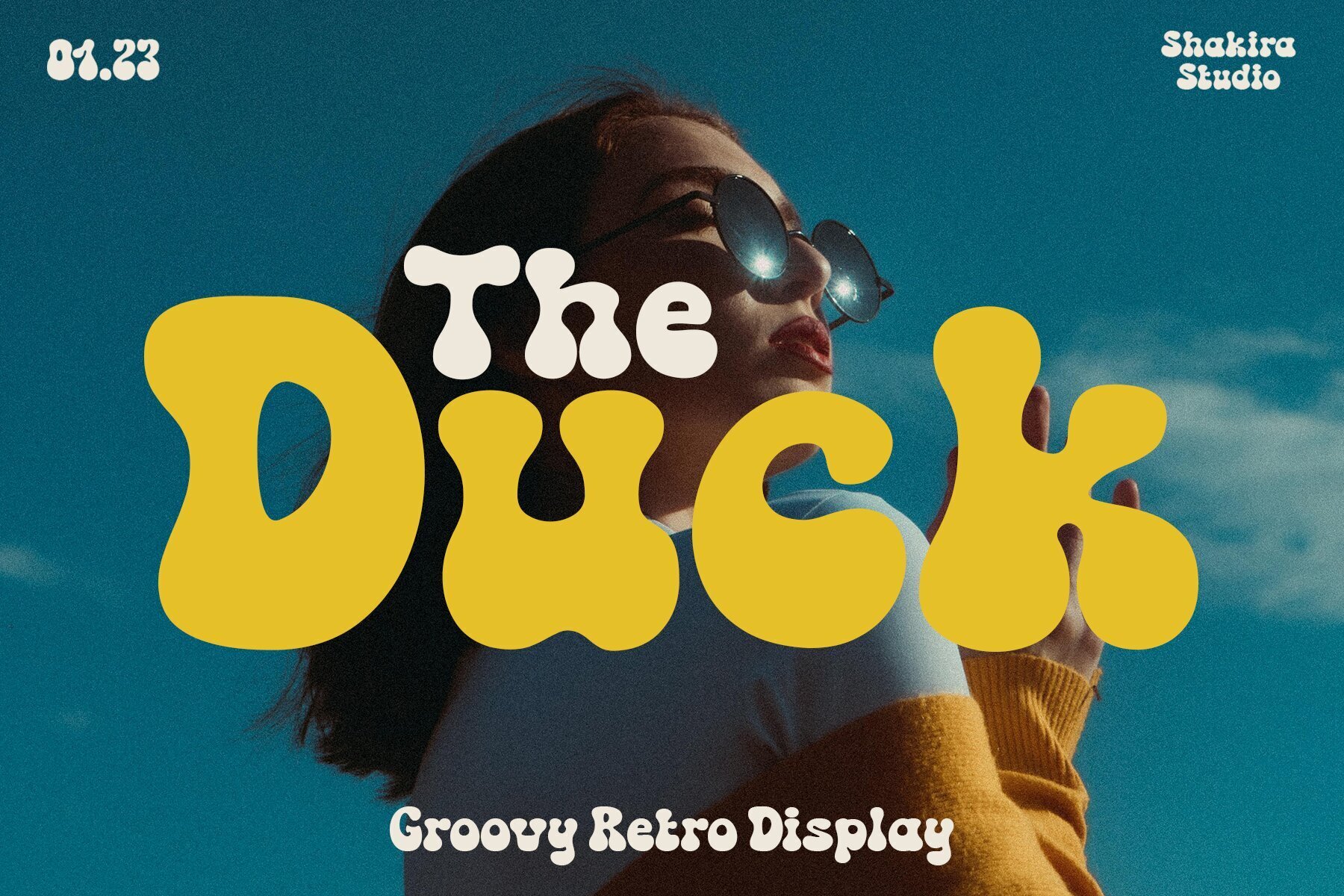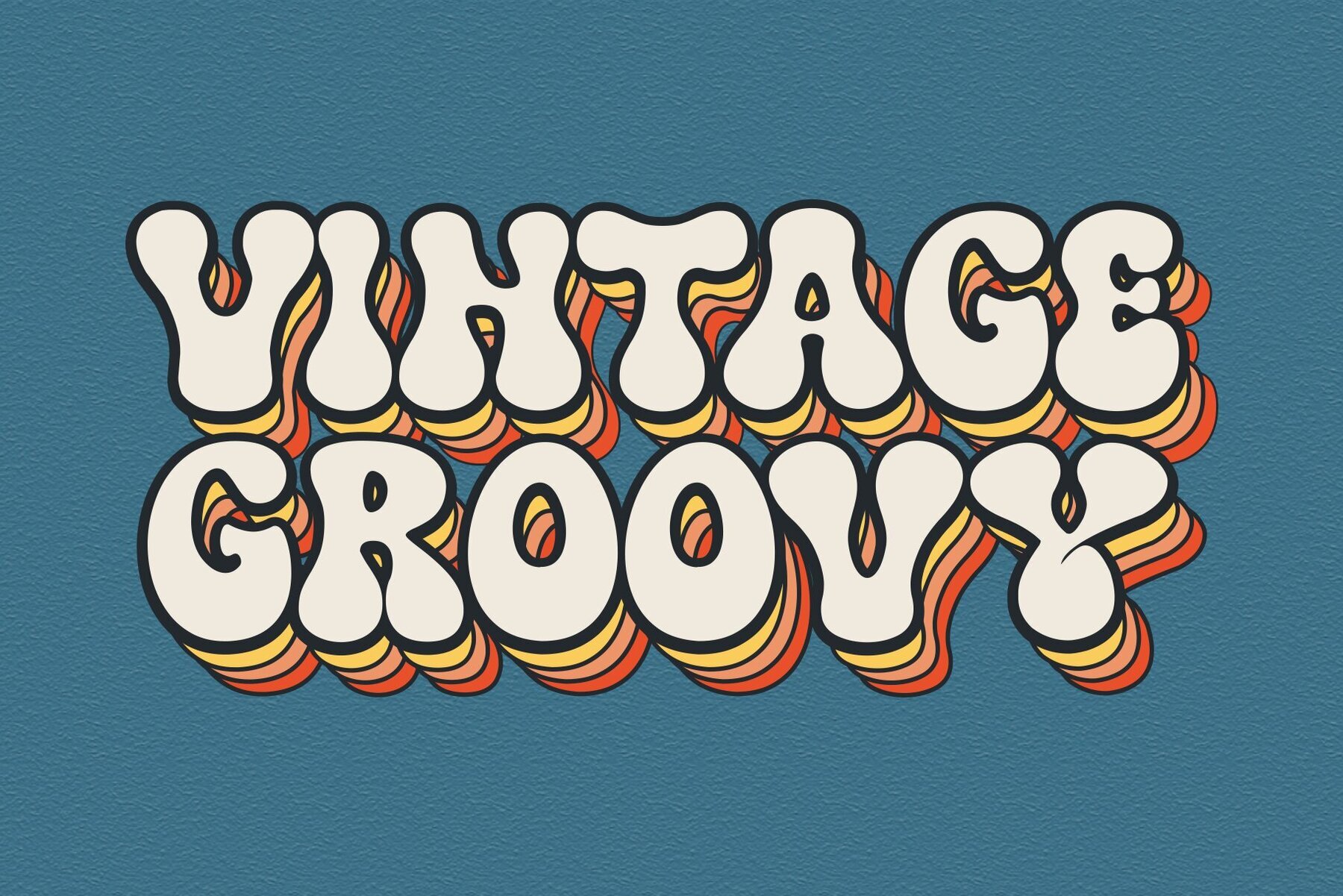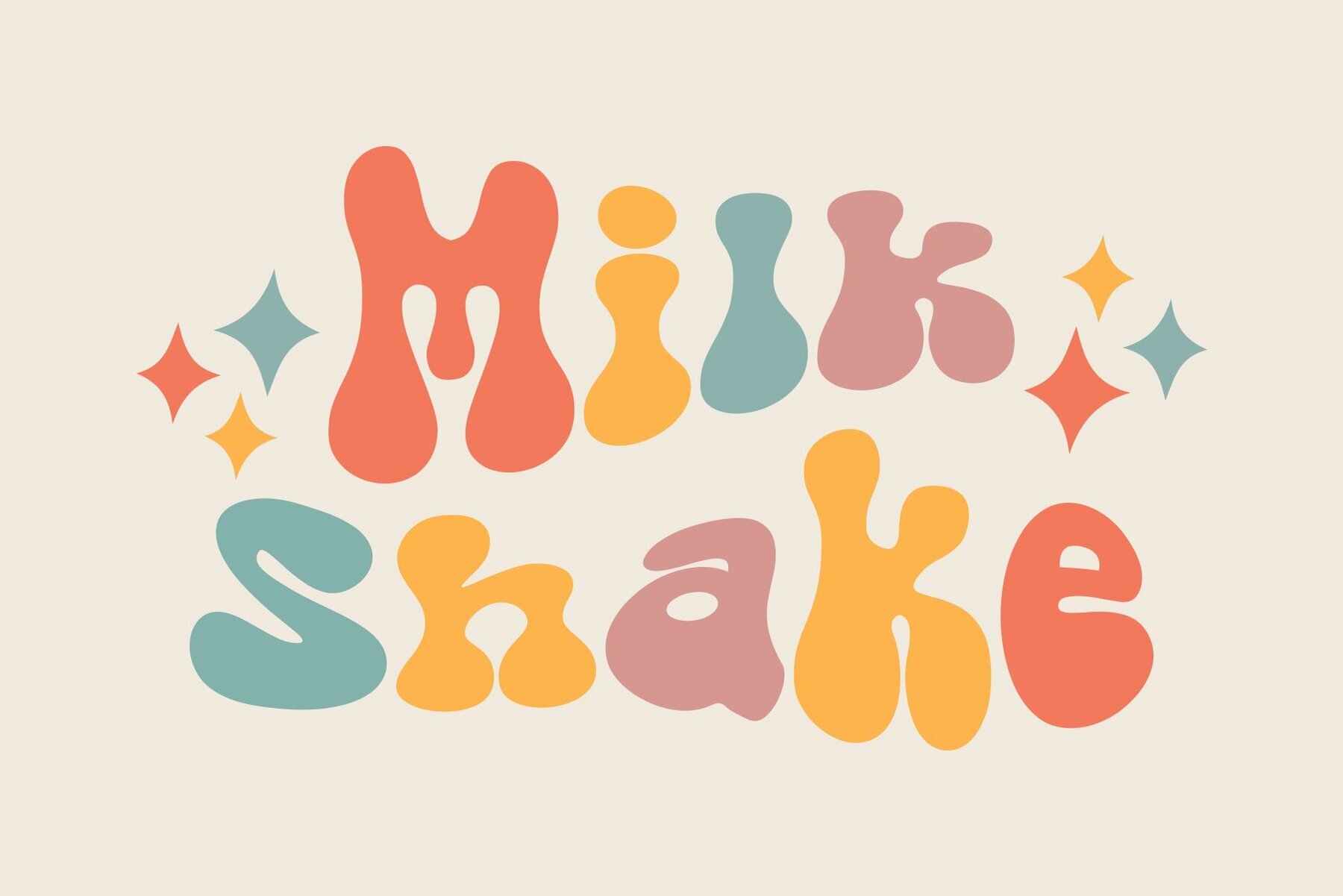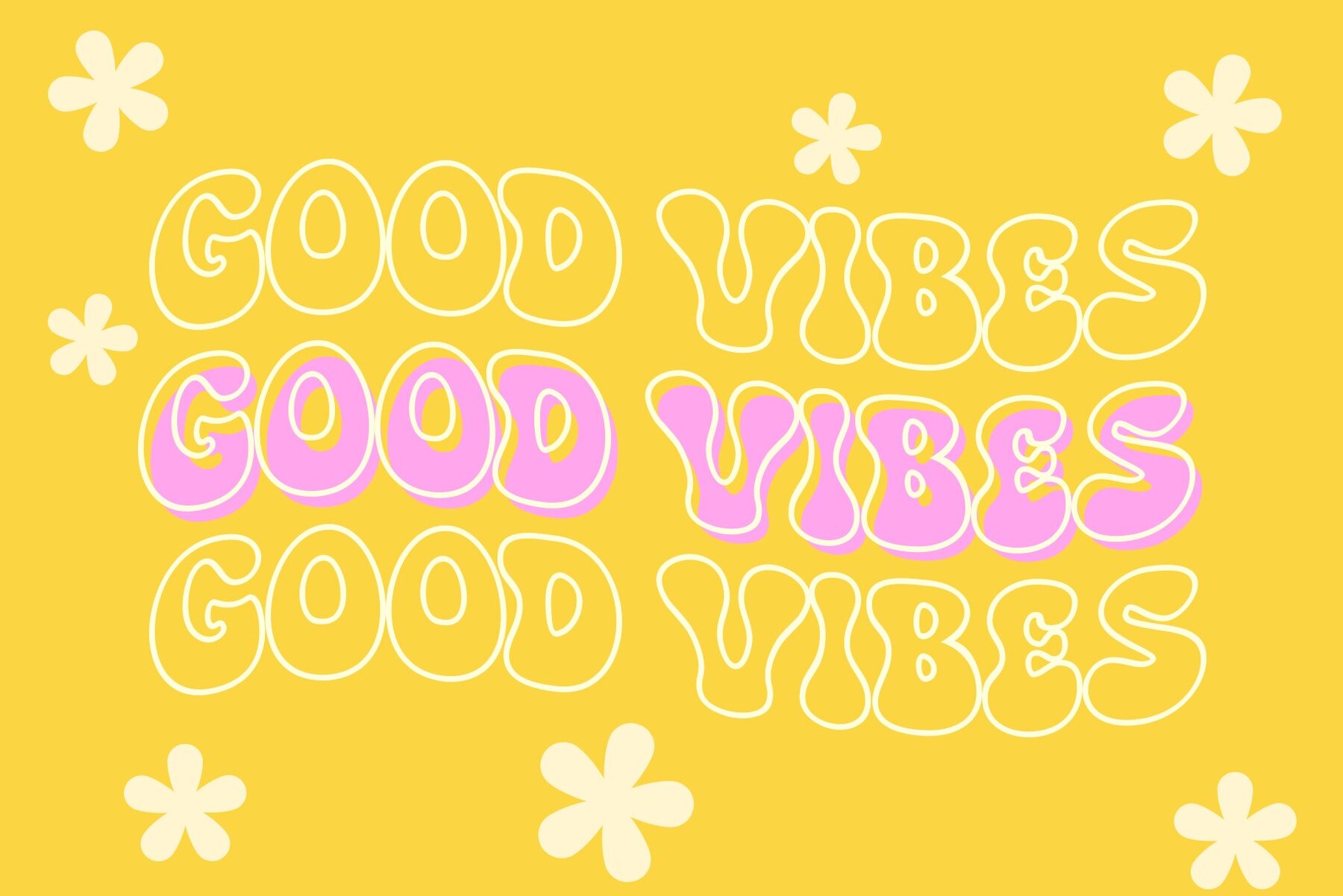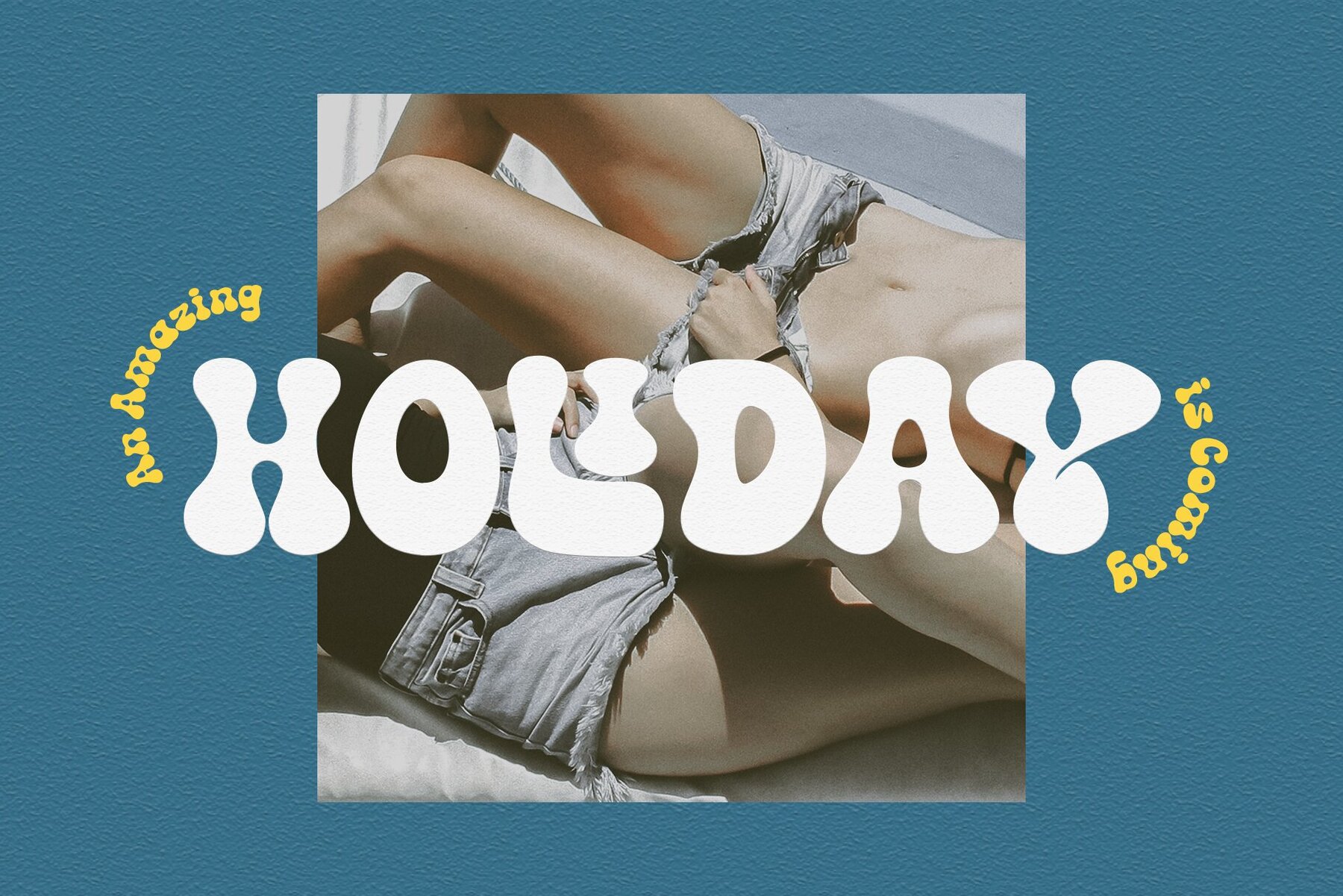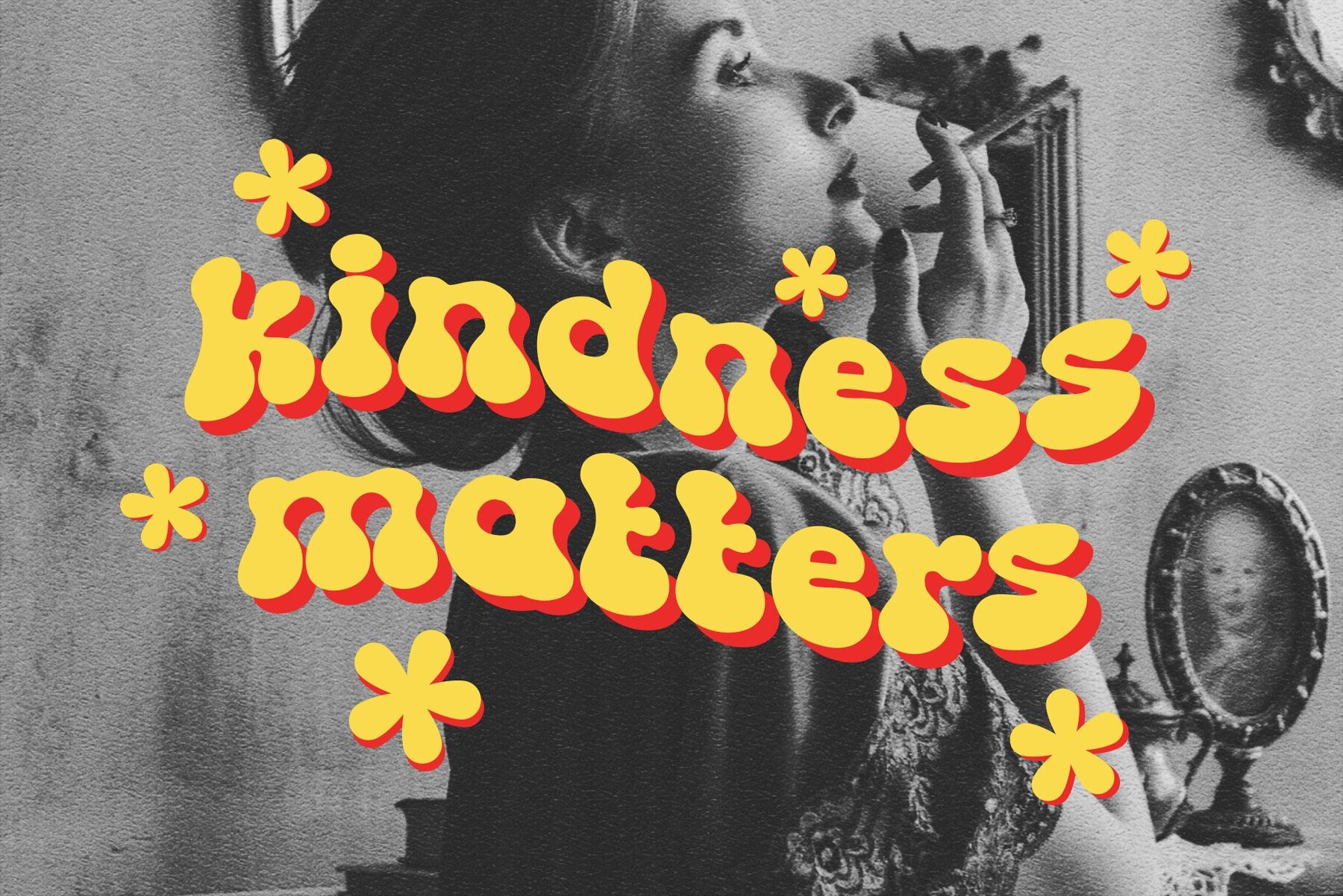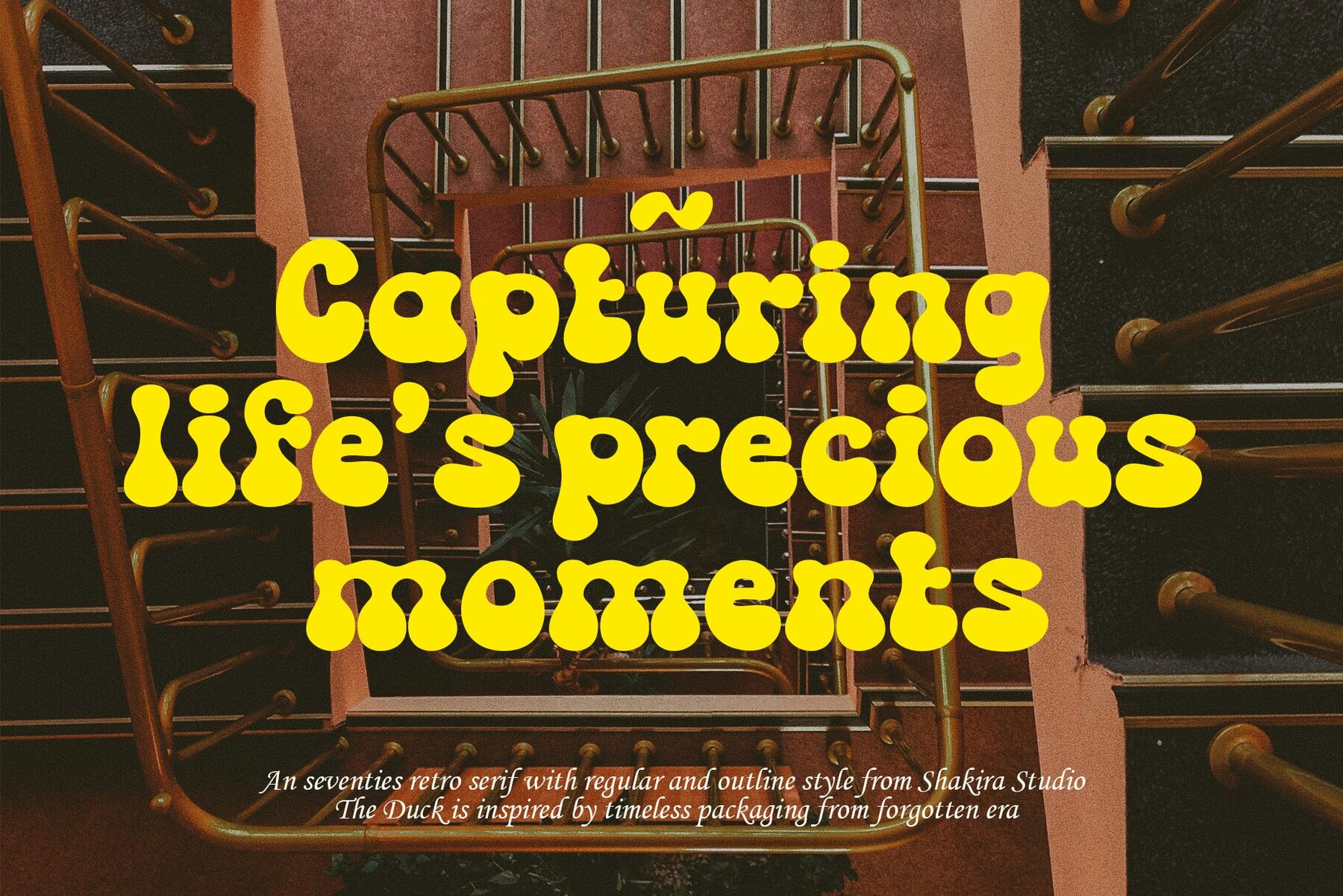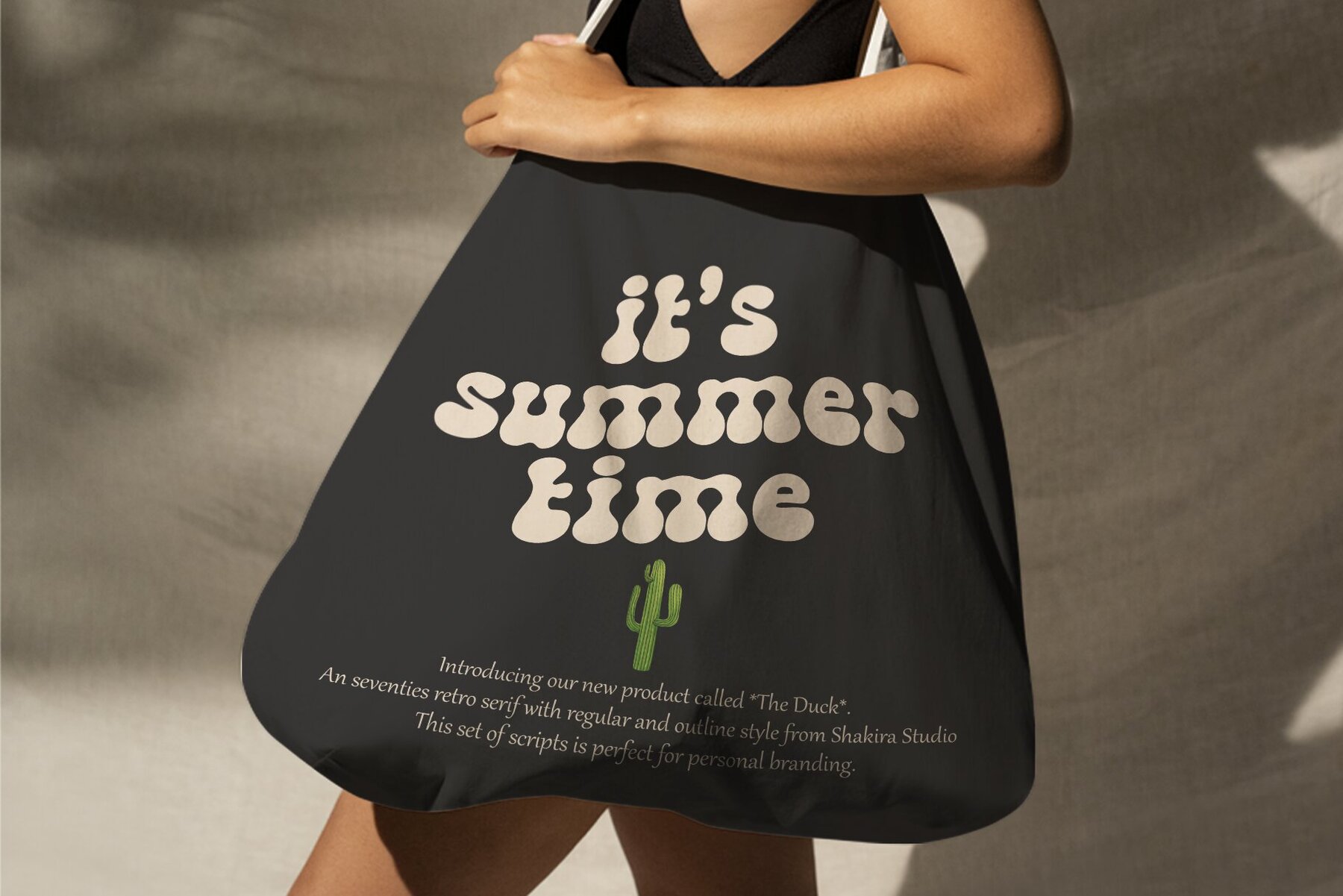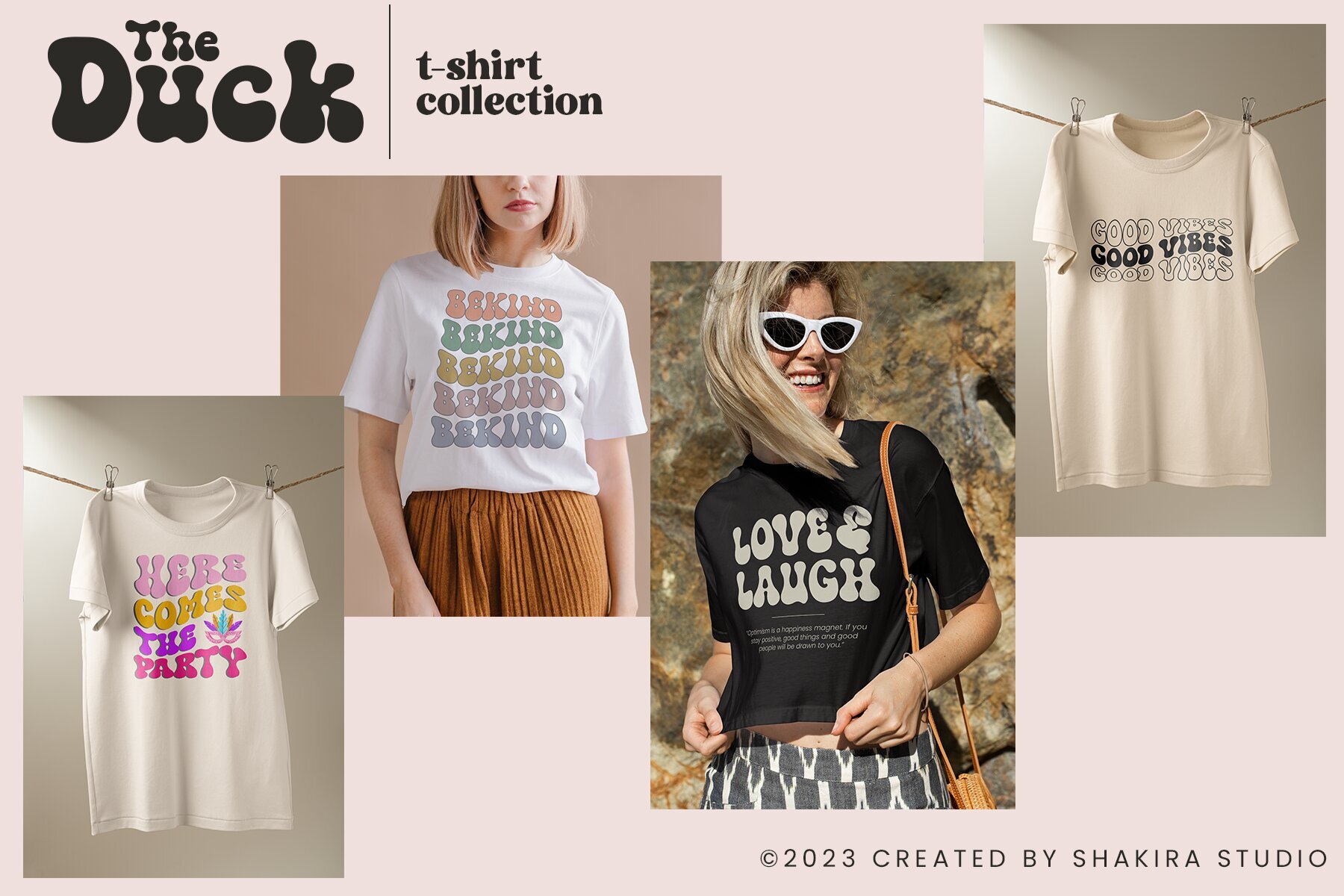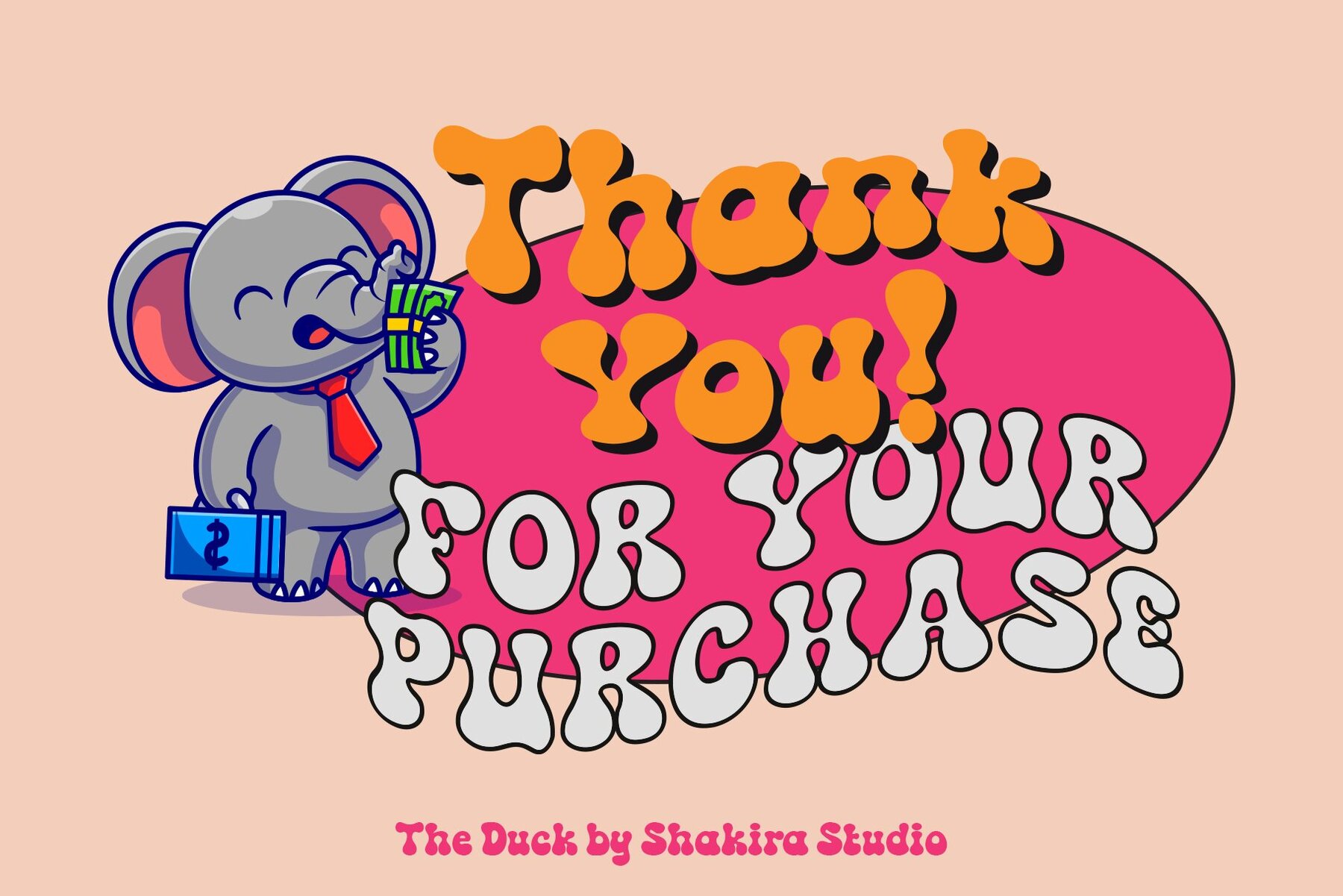
The Duck Font
Get ready to turn back the clock with The Duck font! This groovy retro font is perfect for creating designs that are bold and eye-catching. With its contrasting lines and curved terminals, The Duck font brings a vintage flair to any project. Whether you're creating logos, holiday cards, wedding invitations, or quotes, The Duck font is sure to add a touch of nostalgia to your design.